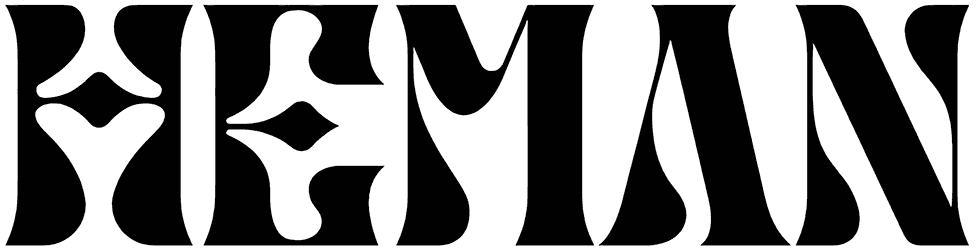
Heman Font
You’ll never strike out with your audience when you put Heman in charge. With all the fun visual cues it has to offer, you can’t get enough of using this nice, groovy font in your lettering.
Once these decorative letters are brought into your design, it begins to sound a lot more inviting and feel a bit retro, too. That means you can use this all-caps font for promoting jewelry making, makeup artists, podcasting, craft supplies, and more.